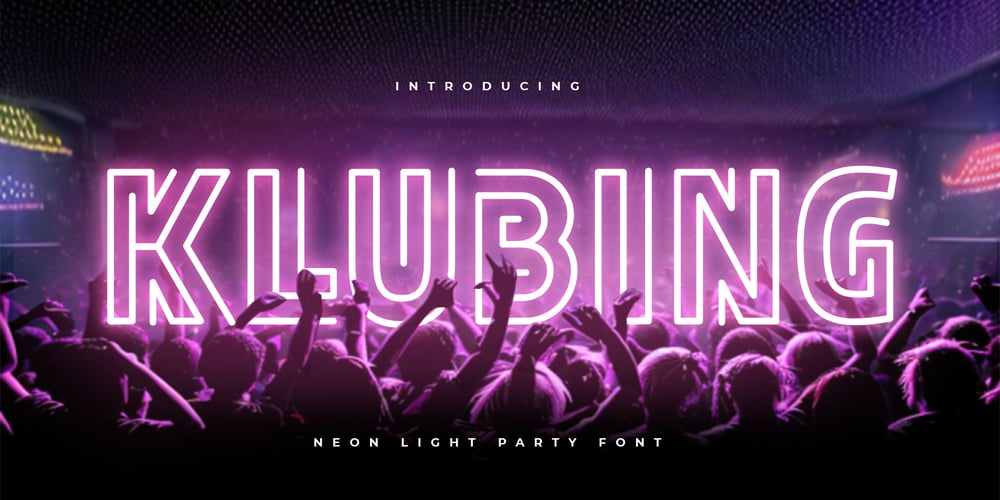
Klubing Font Family was designed by Zamroni Hamzah and published by Sensatype Studio. Klubing contains 1 styles and family package options. KLUBING is a Neon Light Party Font with inline shape make your design look unique and modern. A new Display Font that we created special for Headline, Title and more stand out typography needs. It’s so perfect to add your style and headline overview. And specially for this font, we crafted for unique style and modern feels so enjoy to create any project that will show your main idea out.KLUBING Neon Light Party Font ready with: Any options to get creative variations 4 files format already Preview as a inspirations that you can do with this font Ready with Uppercase & Lowercase characters Wish you enjoy our font. 🙂